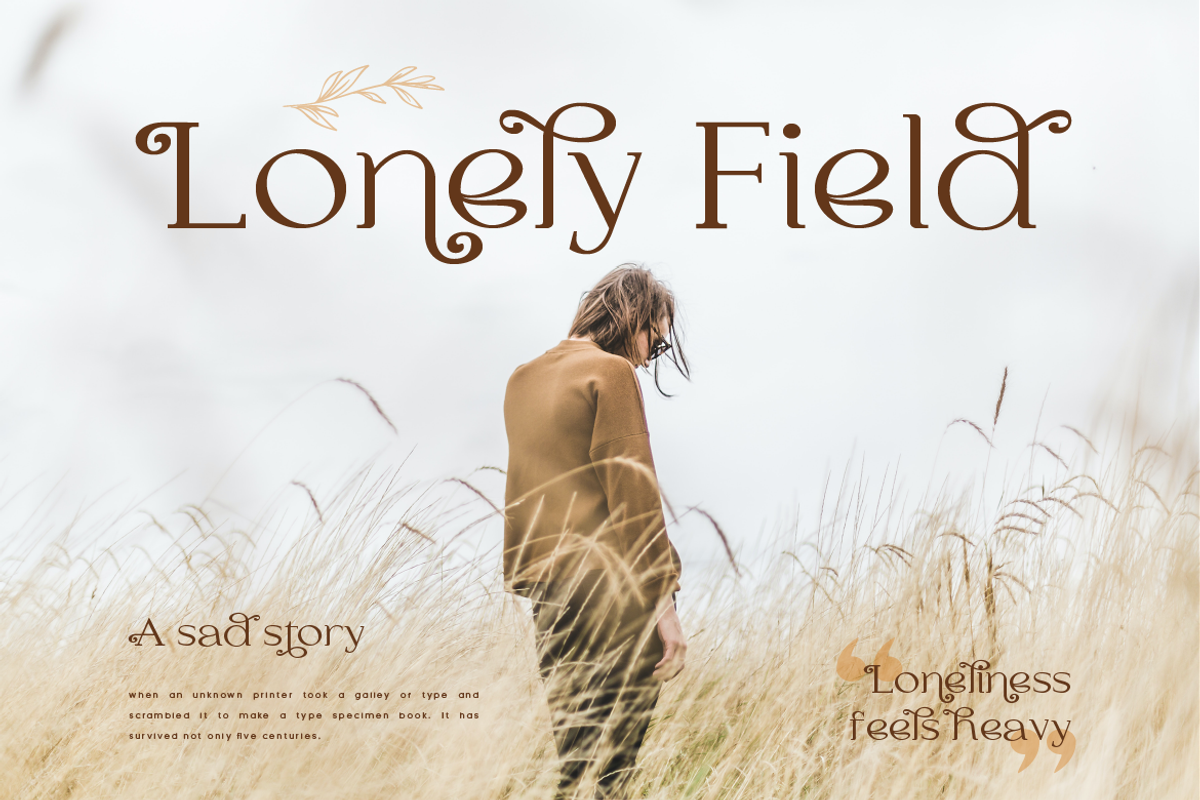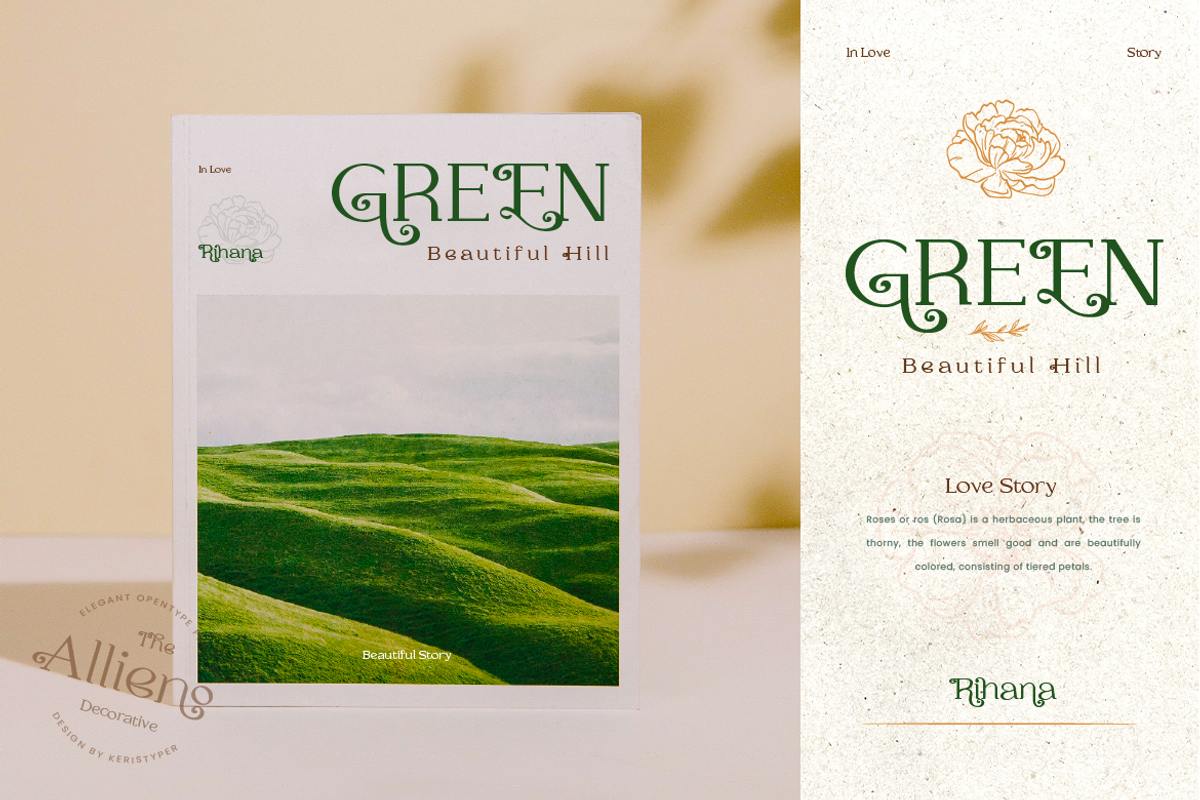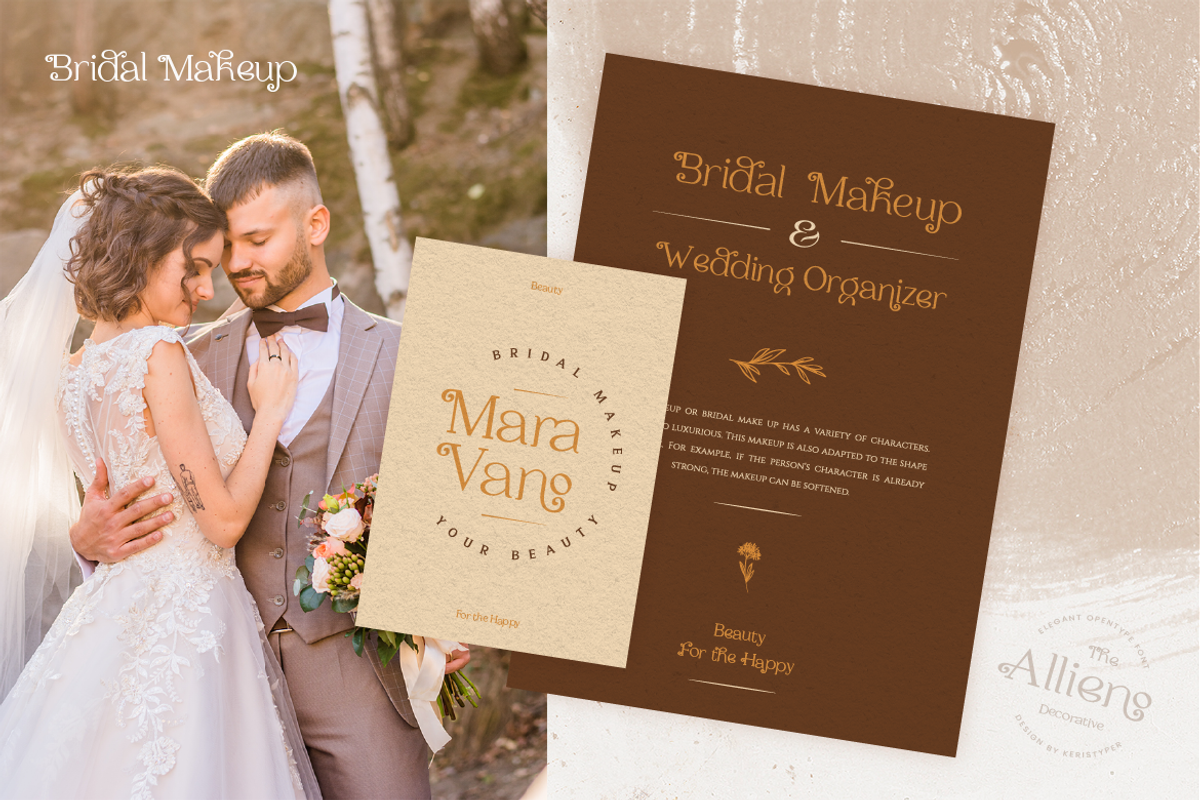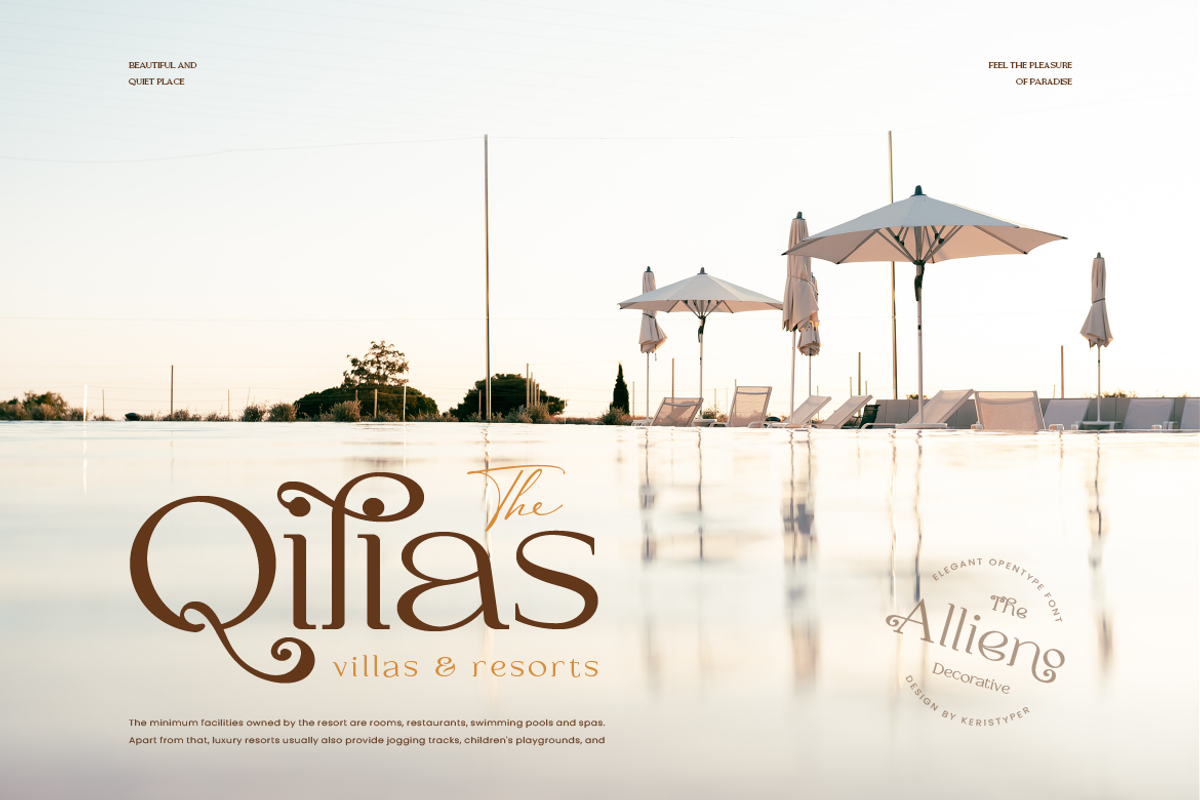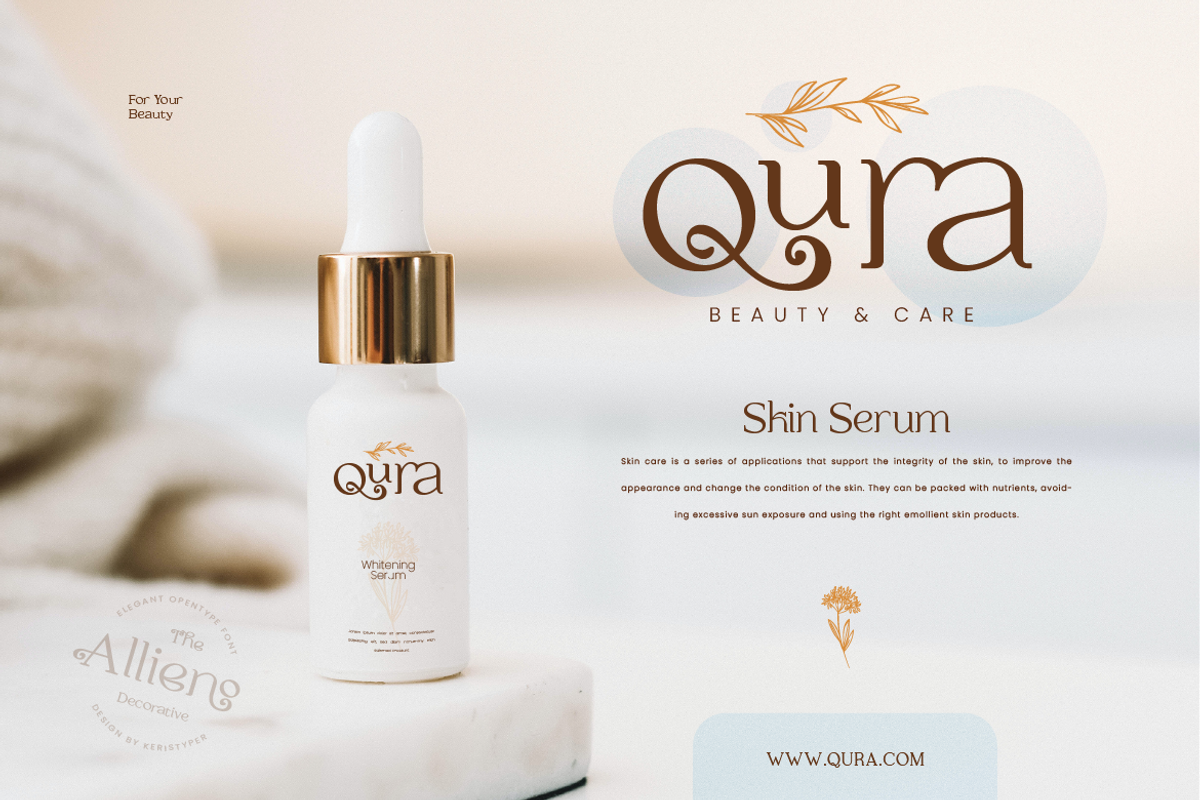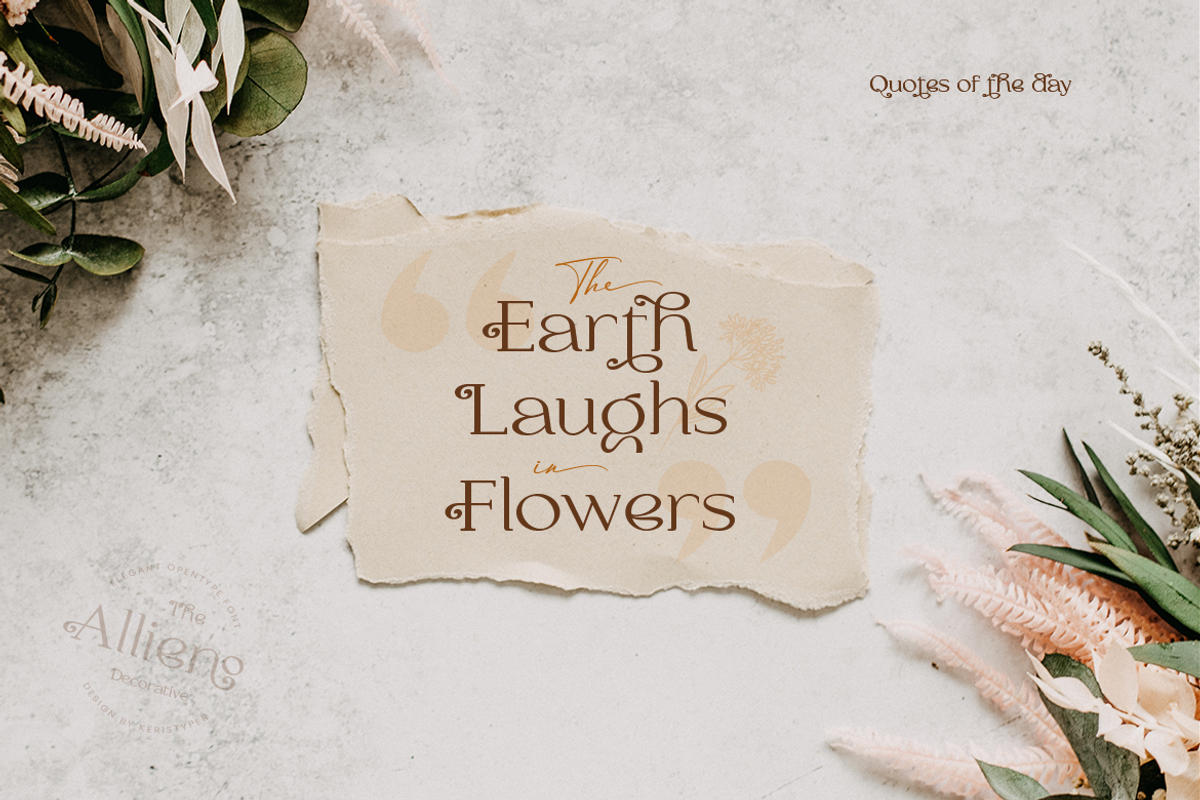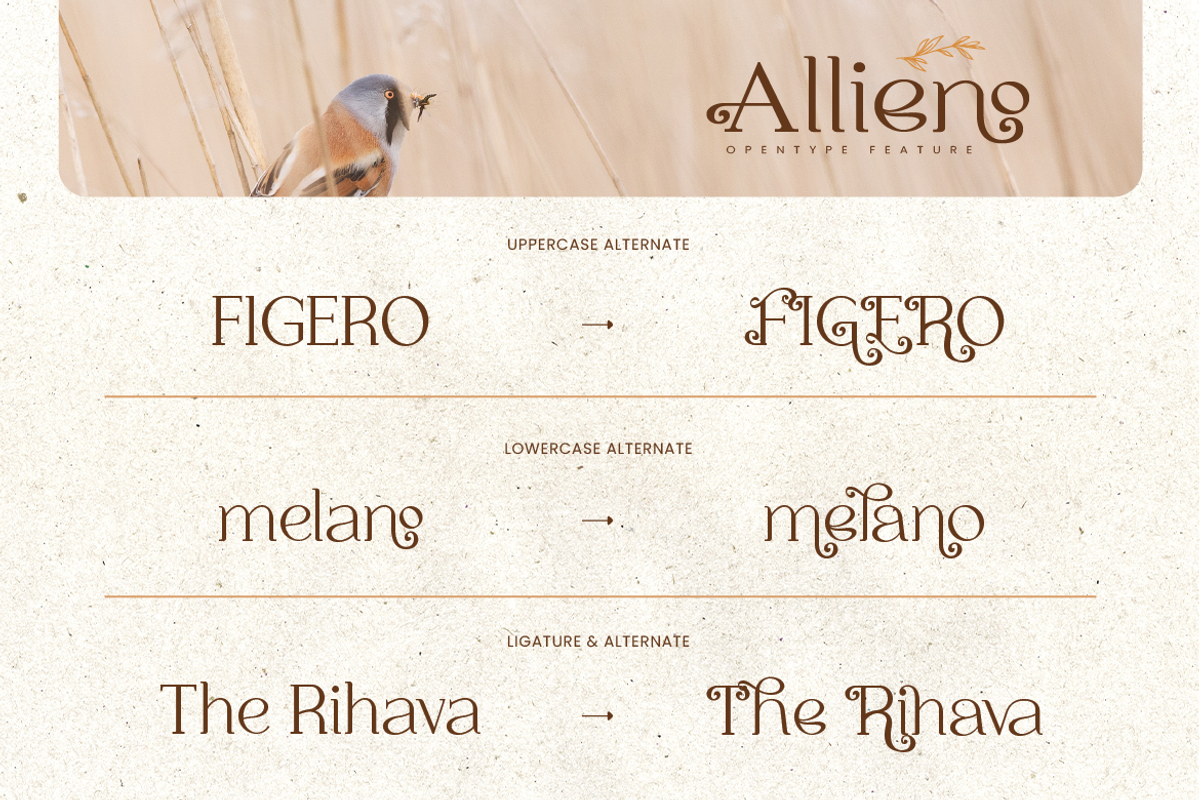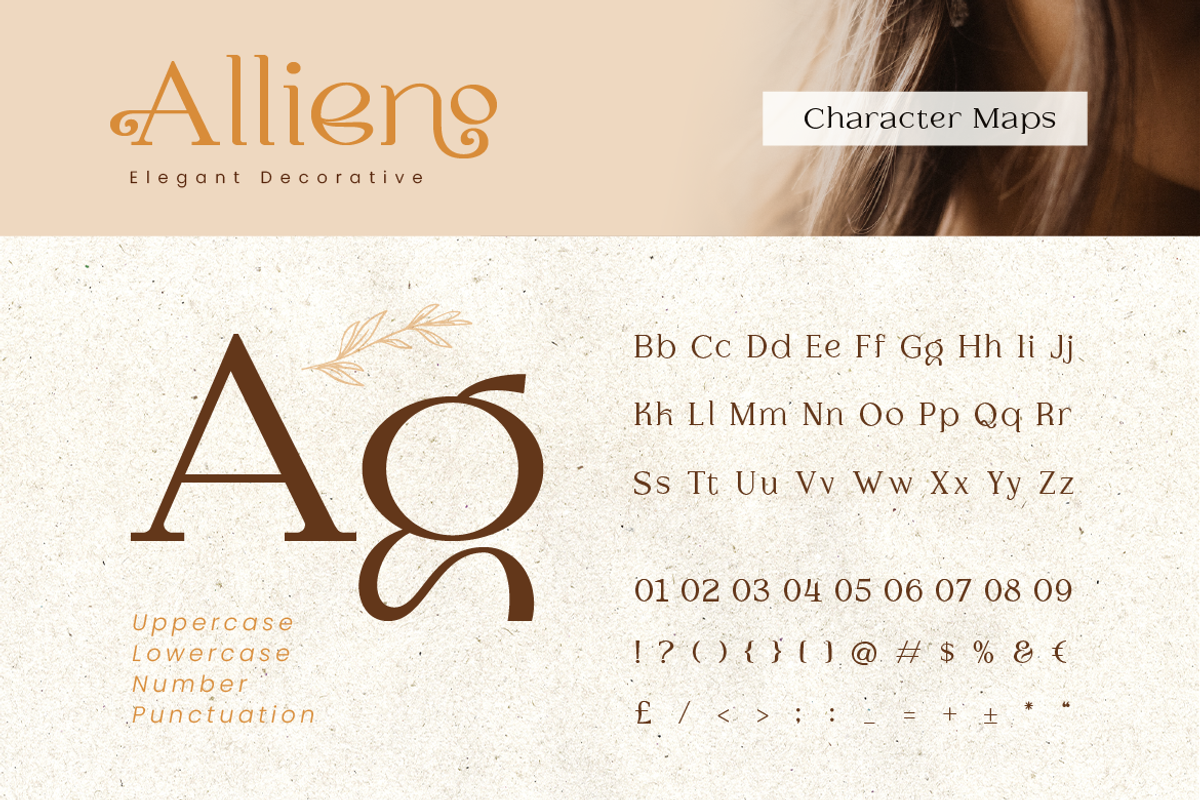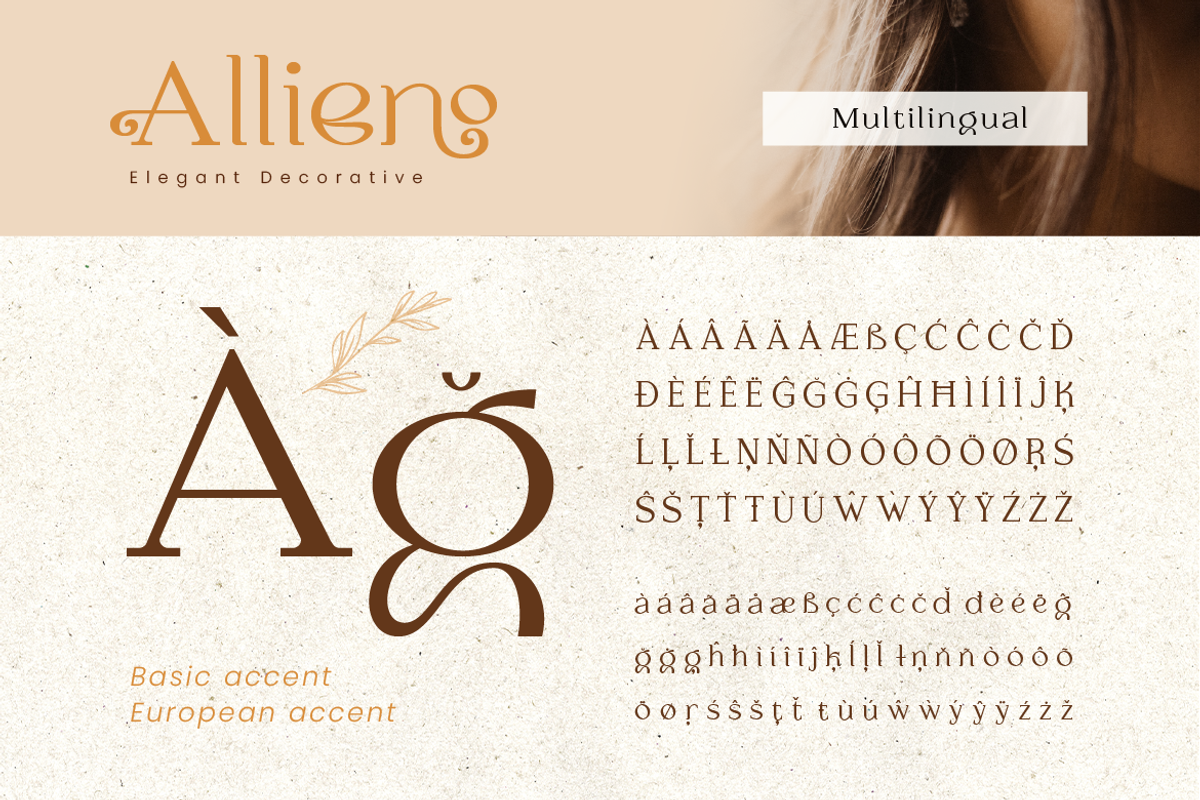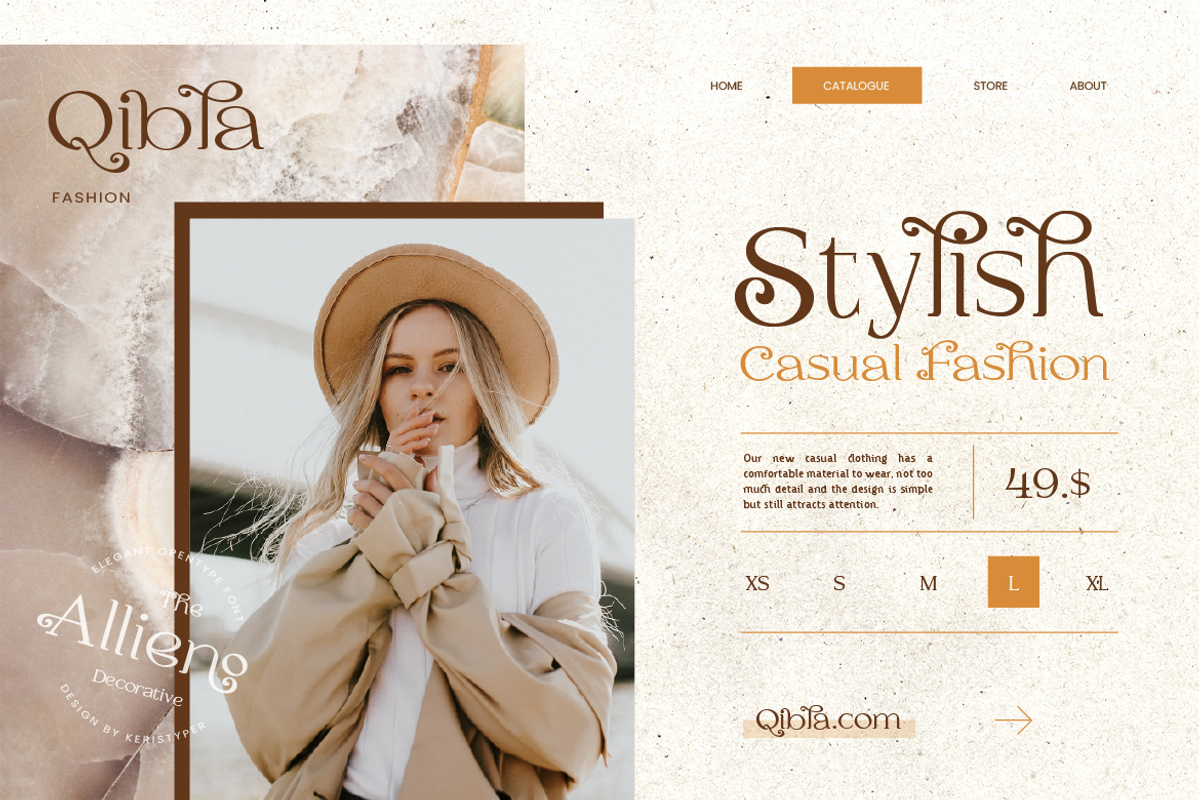
Allieno
Allieno font is a stunning and ornate typeface that adds a touch of elegance and sophistication to any project. Its intricate and decorative design makes it perfect for use in wedding invitations, greeting cards, and other special occasions.
- Standard, Uppercase & Lowercase
- Multilingual : ä ö ü Ä Ö Ü ß ¿ ¡
- Alternate & Ligature